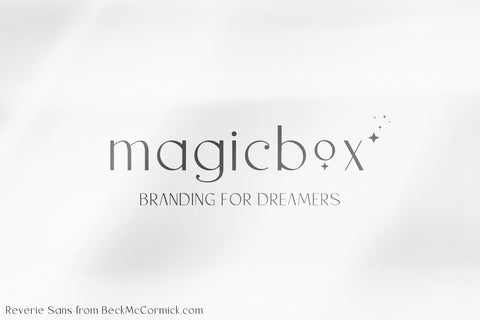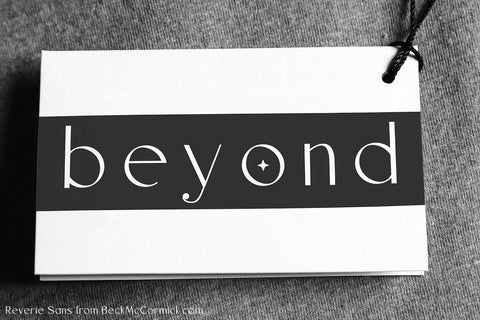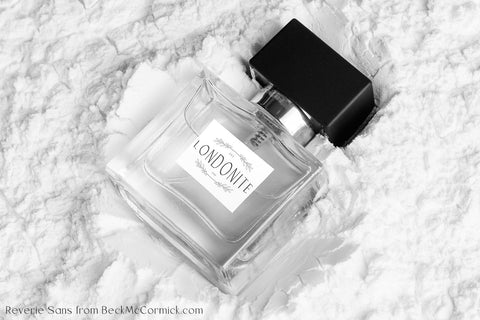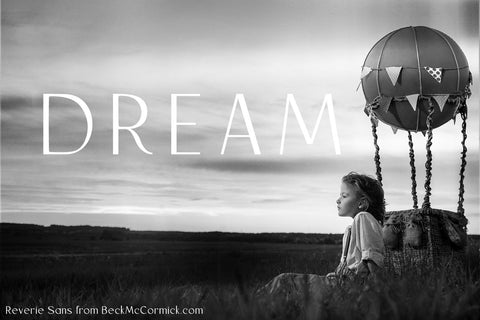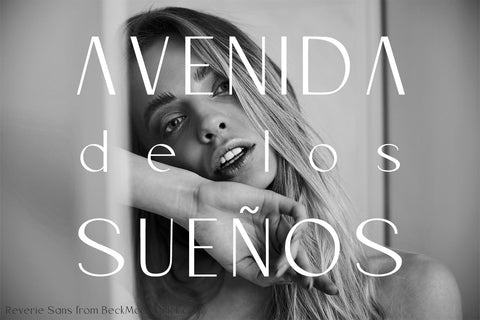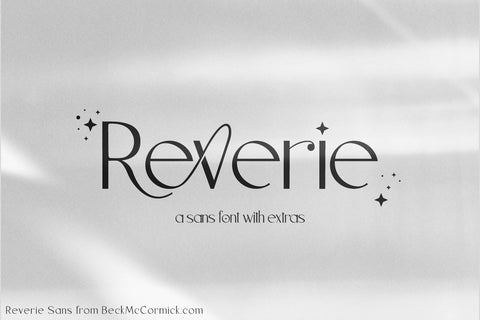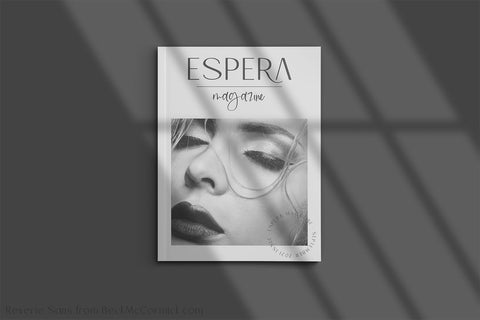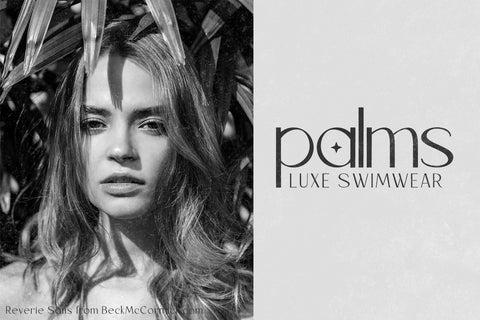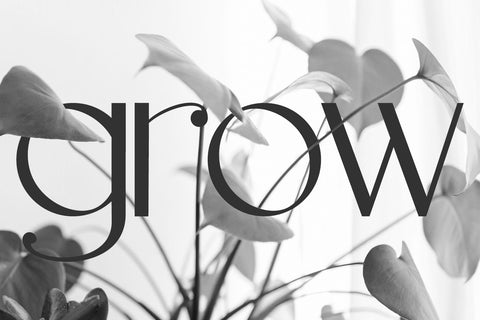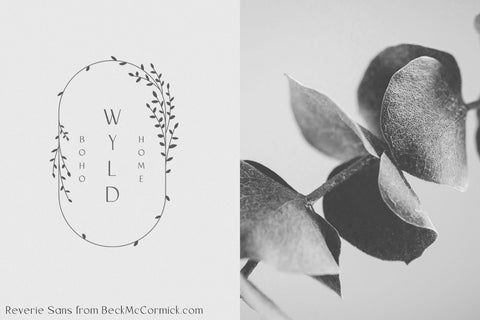
Reverie Modern Sans Font
Introducing Reverie Sans, a modern & stylish sans font with extras.  Reverie features some unique alternate characters, including glyphs with stars and interconnected ligatures.  Reverie is both modern & futuristic in its look.  Reverie Sans would be perfect for fashion brands, magical brands, cosmetic brands, and more.  Reverie works well for print & for websites.
- logos + branding
- website design + website accents - think travel blogs, fashion blogs, & more
- clean print design, like magazines + flyers
- header elements that need a modern touch
- quote graphics for social media
- full upper + lowercase characters
- 14 alternate characters - A (x2), K (x2), R (x2), T, G, a, e, i, j, o (x2)
- 19 ligatures - av, aw, ax, ay, er, ev, ew, ex, ey, fi, fj, fl, om, on, oo, ri, ti, tt, xy
- 6 alternate asterisk options if you want to add a little starry goodness to your design